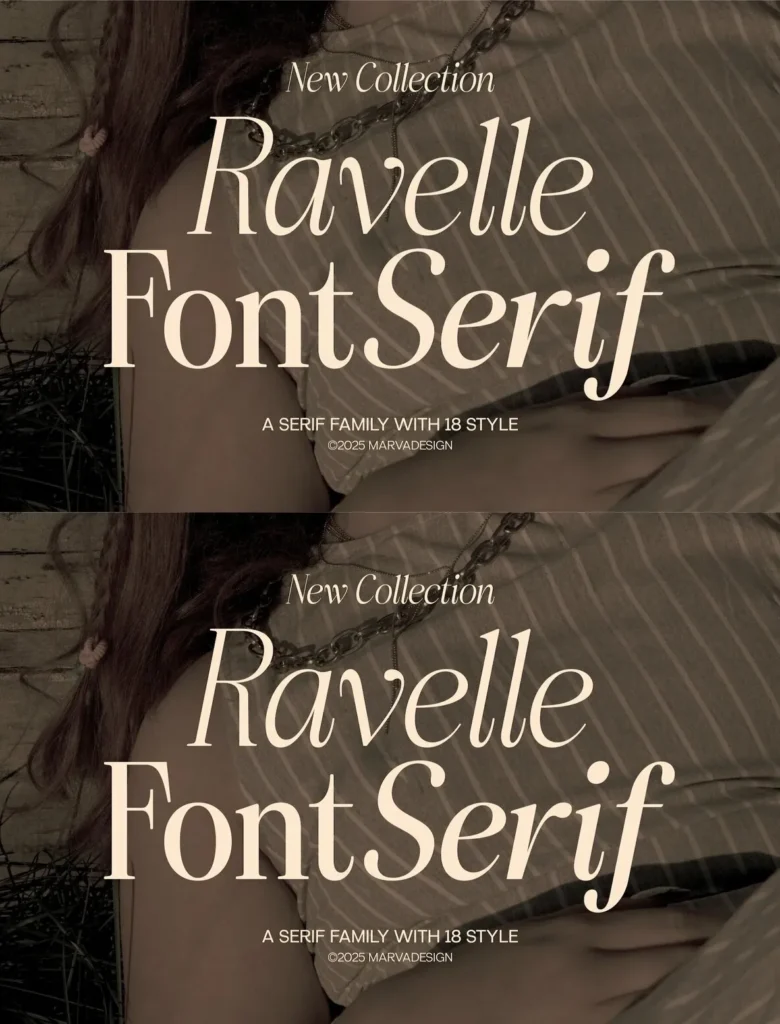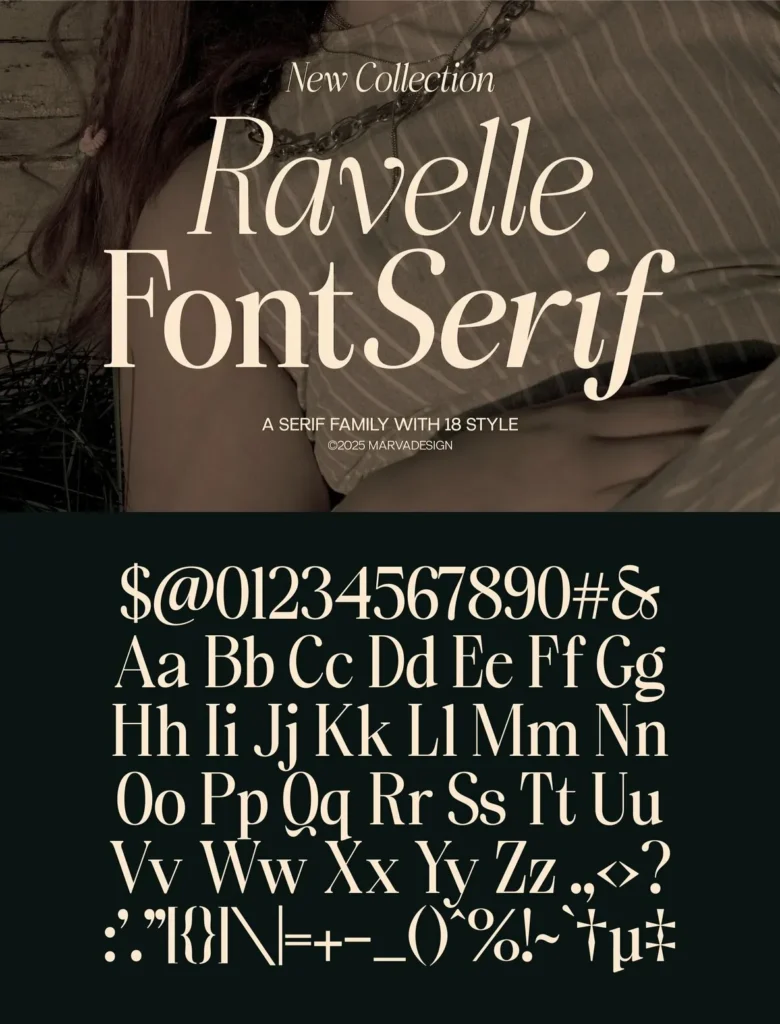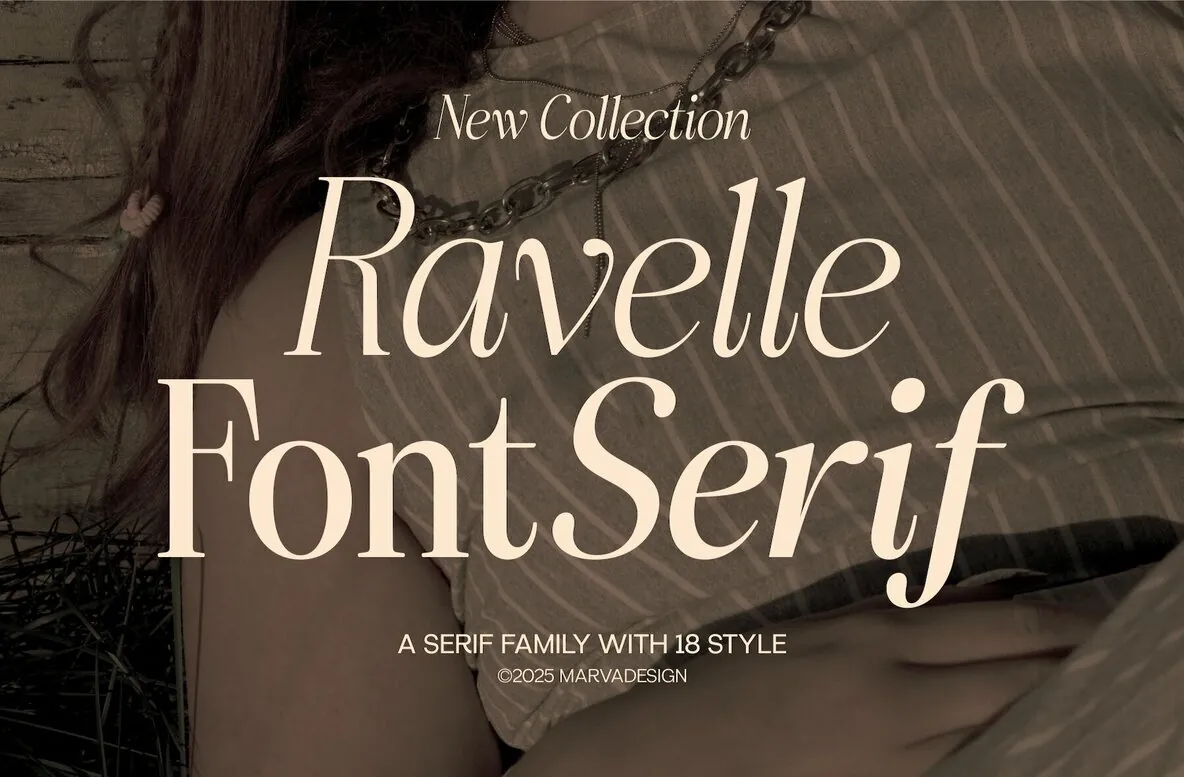
Ravelle Font
Ravelle Font: Refined Luxury for Editorial Work
An elegant serif typeface that blends classic structure with modern aesthetics. It balances thick and thin strokes with care, giving your layouts a refined, timeless tone. The family spans multiple weights from Thin to Black, so it suits everything from delicate typography to strong, high-impact headlines.
Subtle curves and sharp serifs give Ravelle a polished, professional voice. Its high contrast and fine details support premium work such as editorial design, branding, and invitations. The expressive letterforms stay readable while keeping a distinctive visual presence. Designed by Marvadesign, Ravelle includes 18 different styles for flexible, well-paced typographic compositions across print and digital projects.